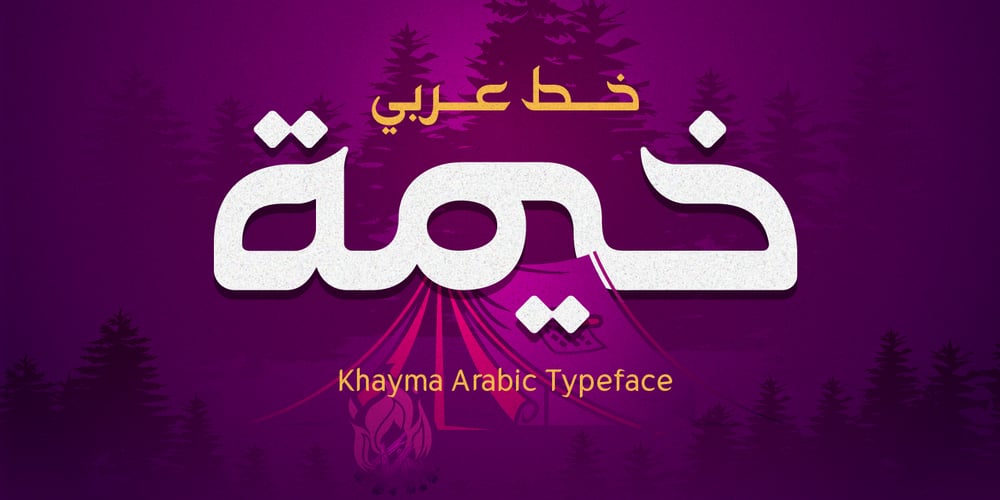
Khayma Font Family was designed by Nur Syamsi and published by NamelaType. Khayma contains 1 styles and family package options. Khayma is an arabic display font with the Kufi style. Khayma is an arabic with mean is tent or flexible shelter, as the name suggests, this font is very flexible for all your design needs